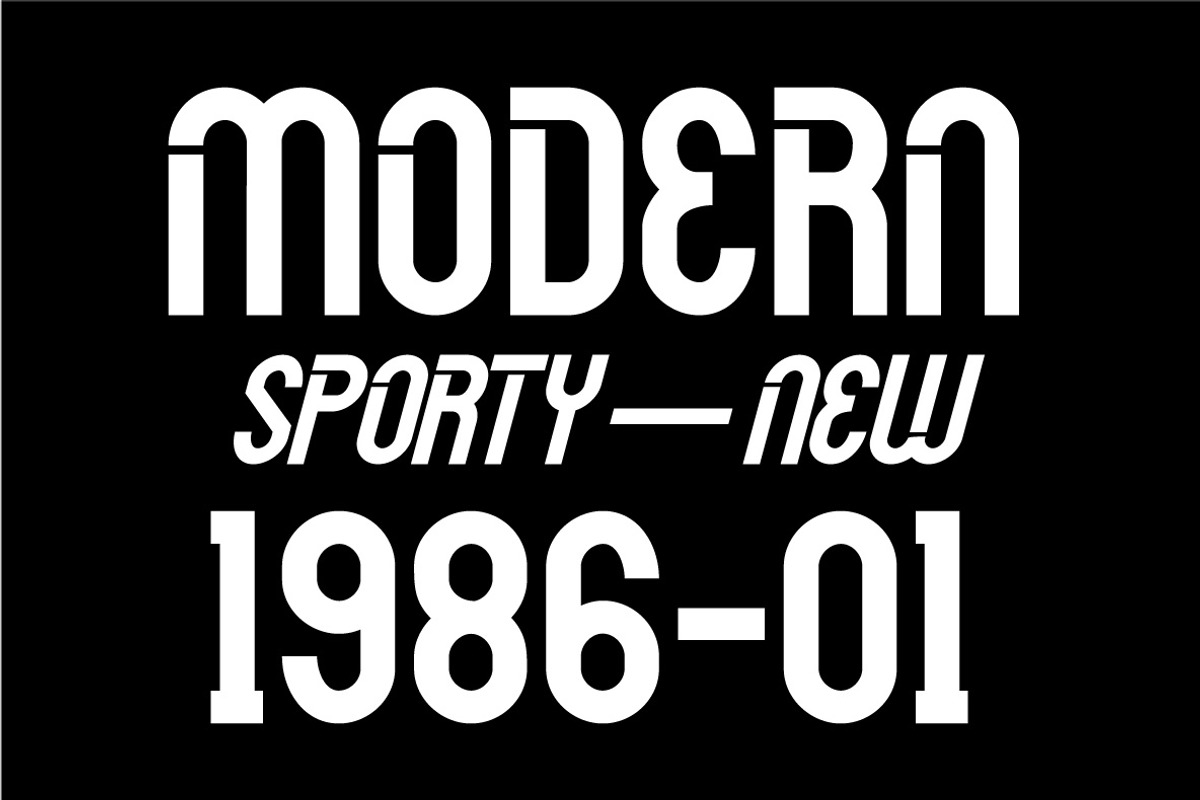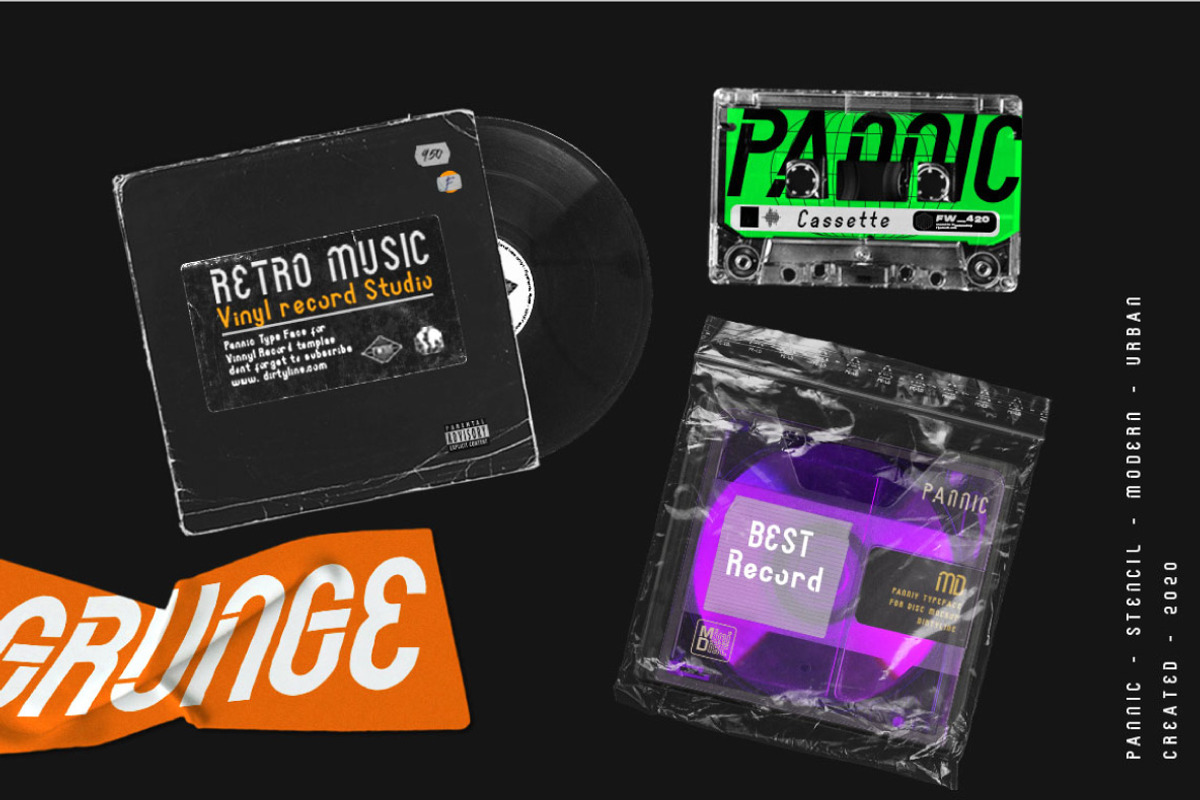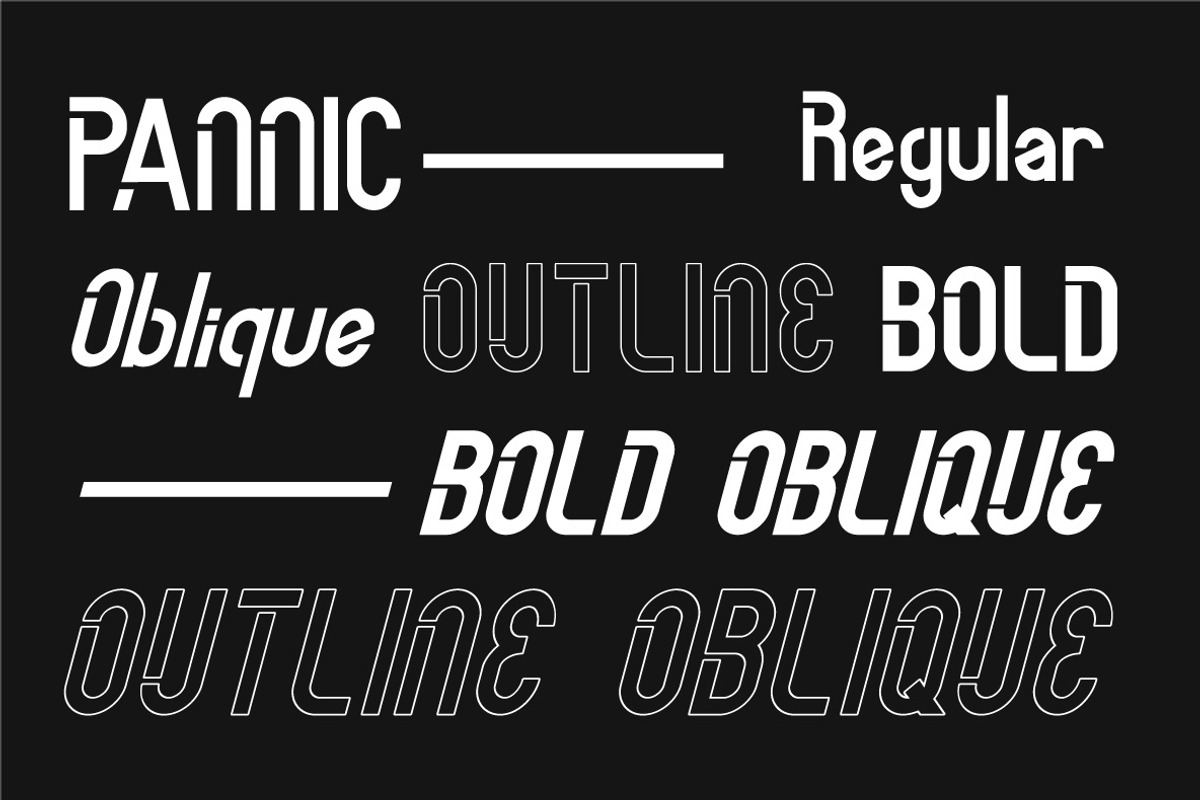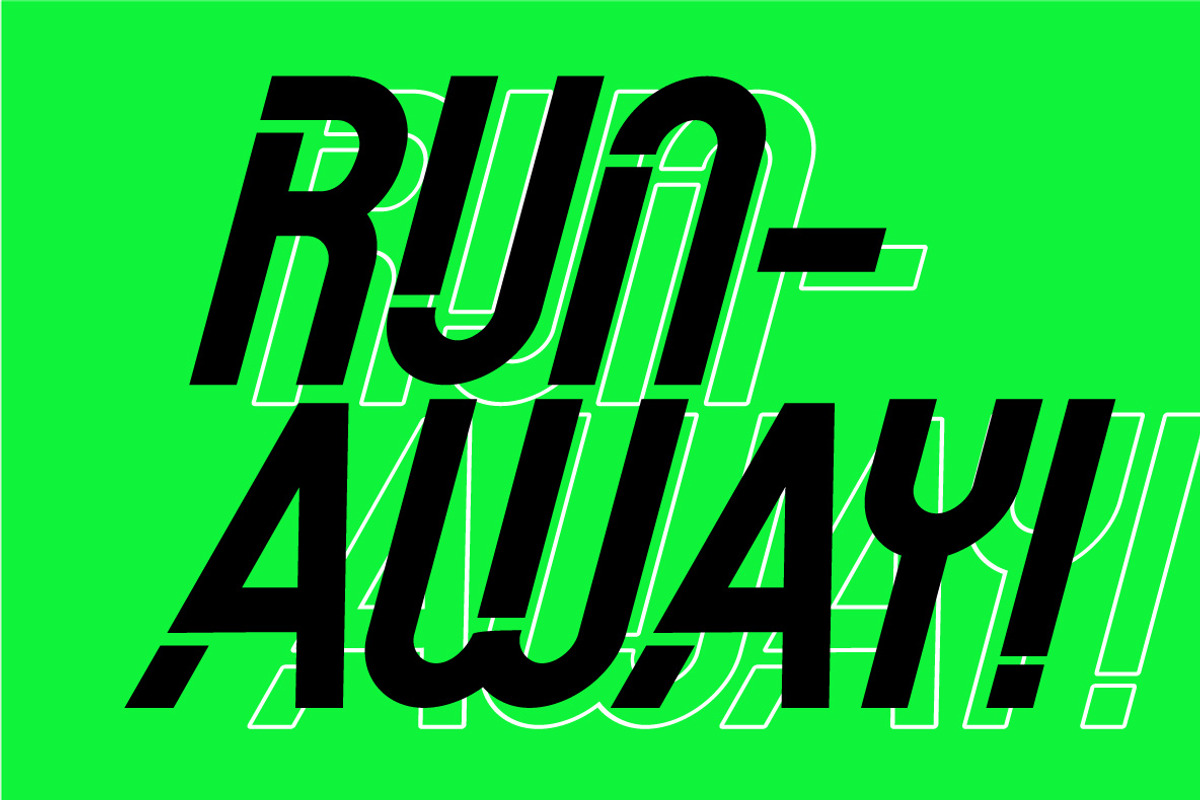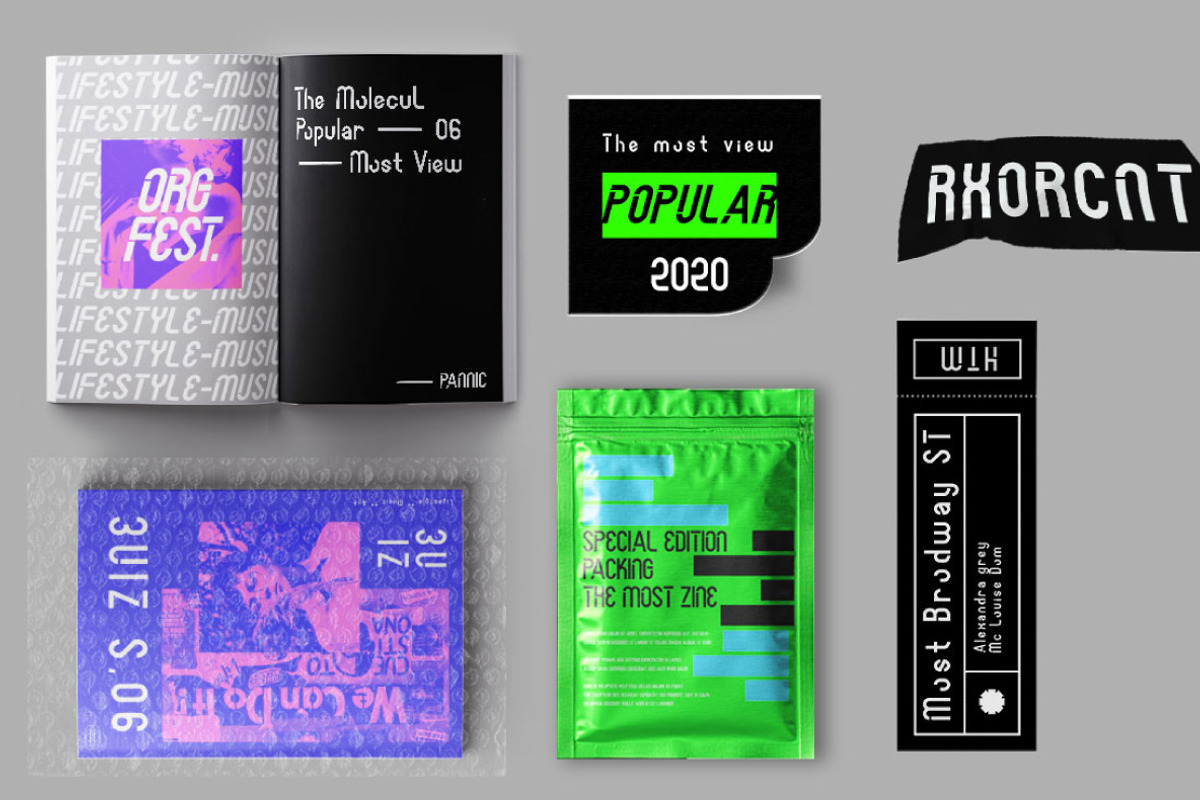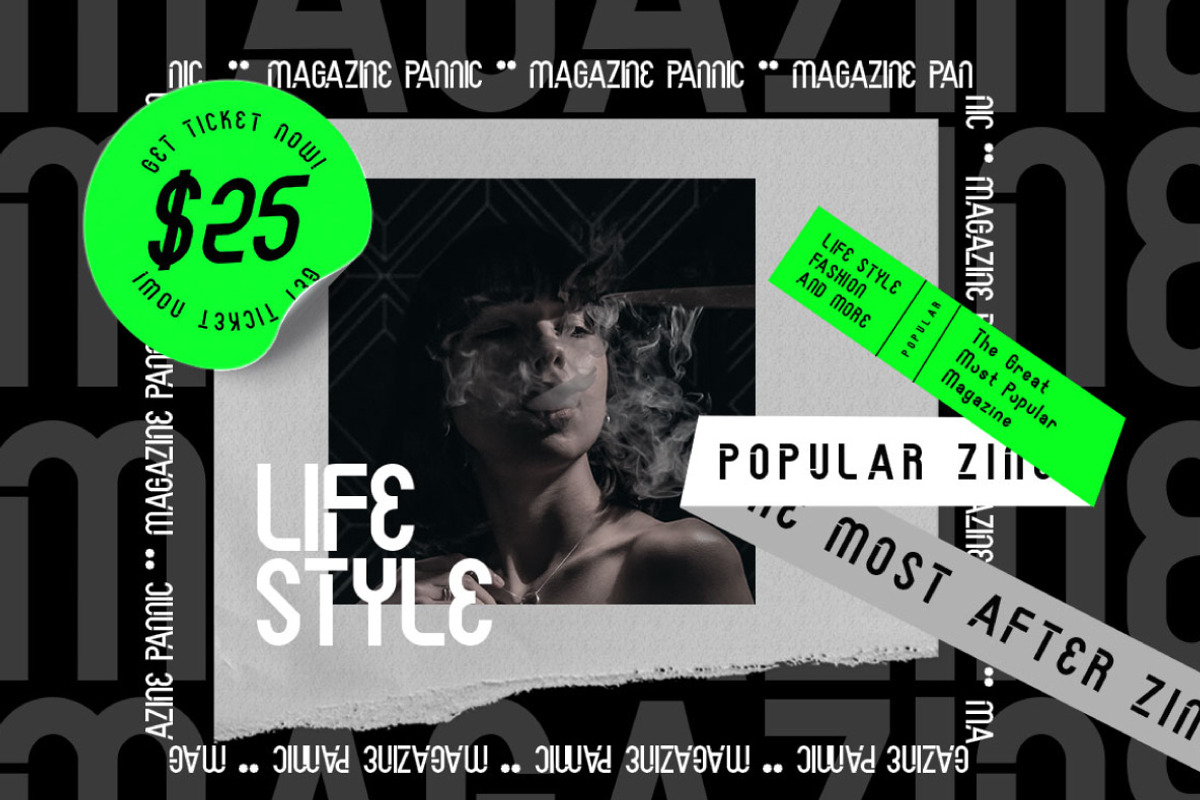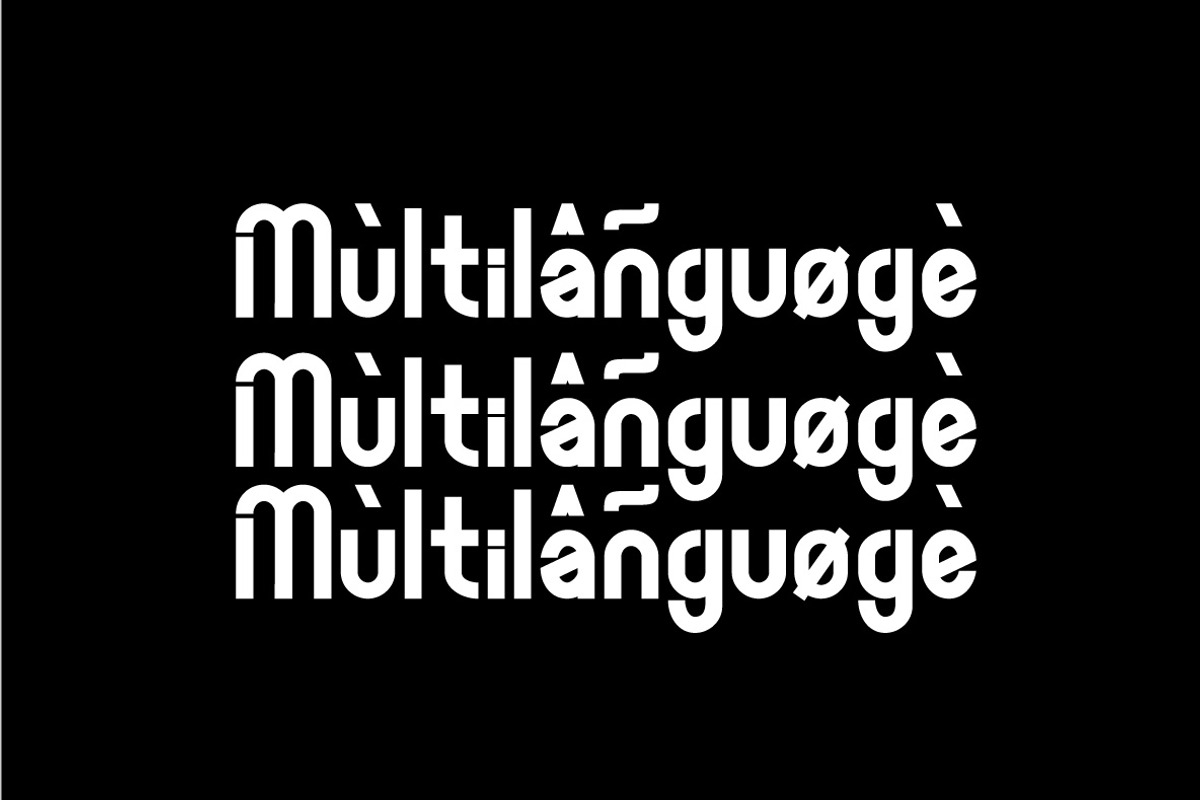
PANNIC - Display Font Sans
Introducing the new PANNIC Sans Font! A BOLD, TALL, modern Techno Typeface. Try it for yourself and see how eye-catching your new stand-out designs will be!
- PANNIC regular
- PANNIC Oblique
- PANNIC Bold
- PANNIC Bold Oblique
- PANNIC Outline
- PANNIC Outline Oblique
PANNIC - Display Font Sans by Dirtyline Studio fits naturally into Branding, posters, packaging, typography.